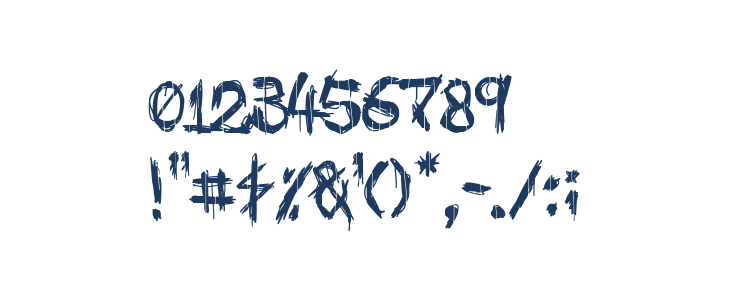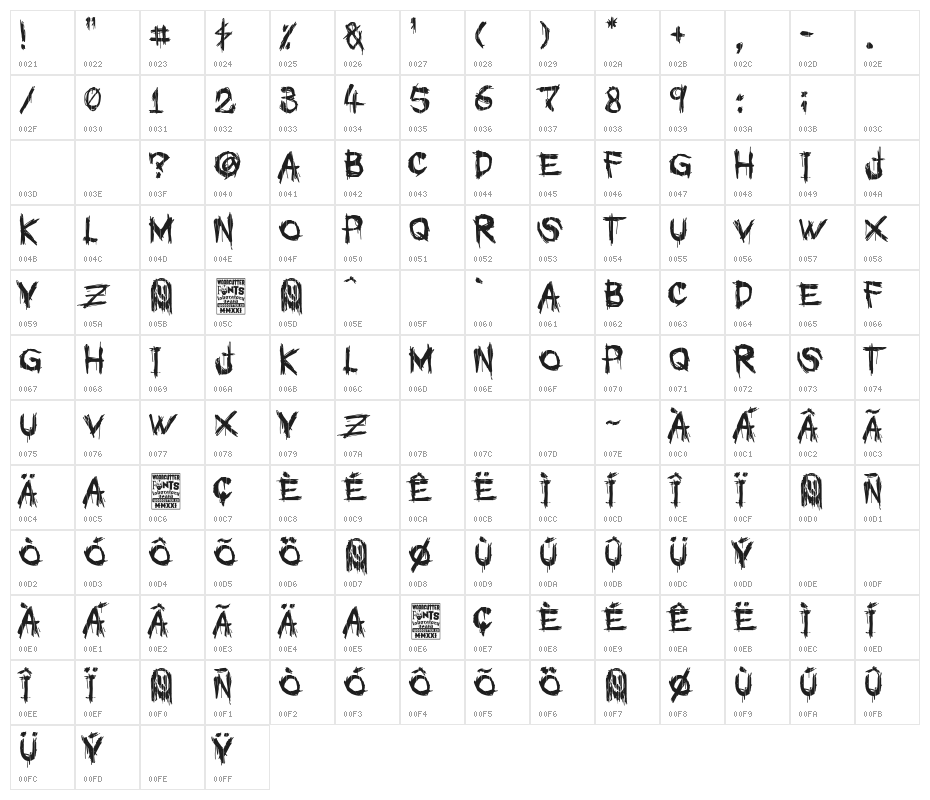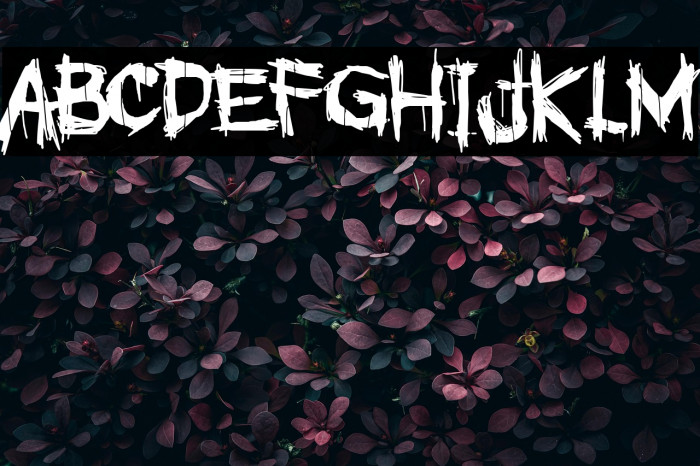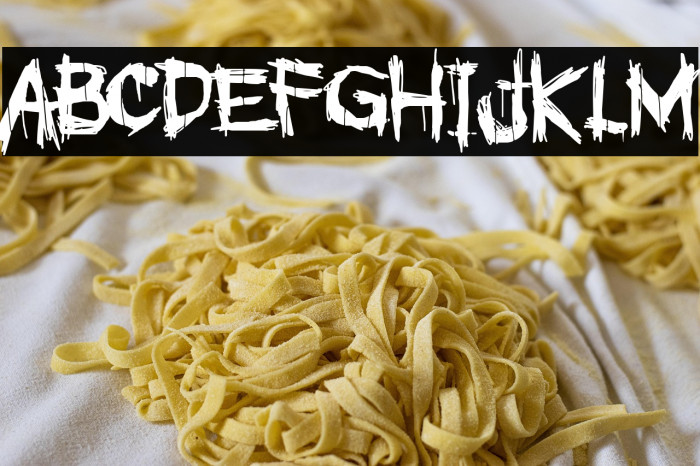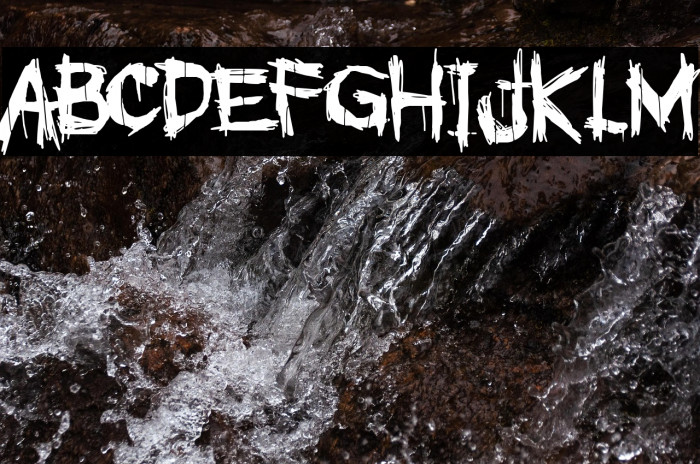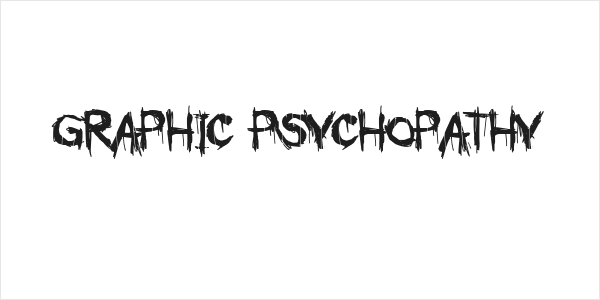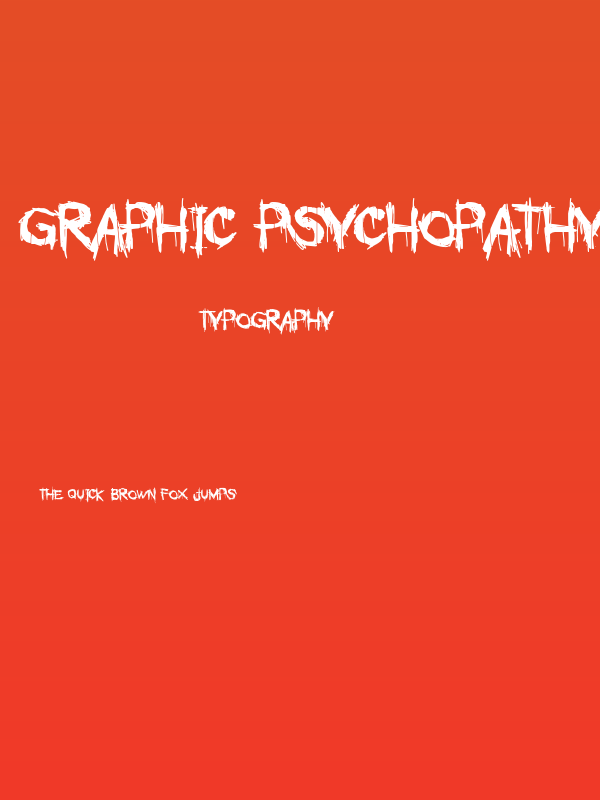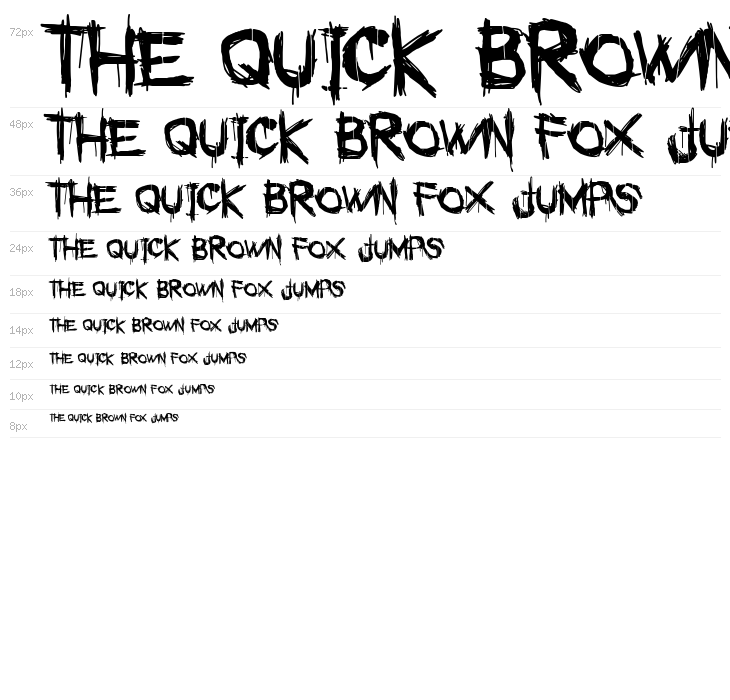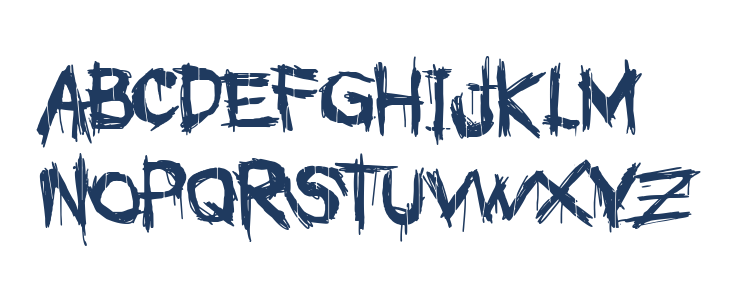
GRAPHIC PSYCHOPATHY Font
GRAPHIC PSYCHOPATHY Description
This font exudes a chaotic and edgy style, characterized by its jagged, rough edges and irregular strokes. The letters appear as if they have been hastily scratched or carved, giving off a rebellious and intense vibe. Each character is unique, with varying thickness and a distressed appearance that adds to its raw aesthetic. The font maintains a consistent height across all characters, but the widths vary, enhancing its unpredictable nature. This design is perfect for projects that require a bold statement or an element of surprise, capturing attention with its unconventional and artistic flair.